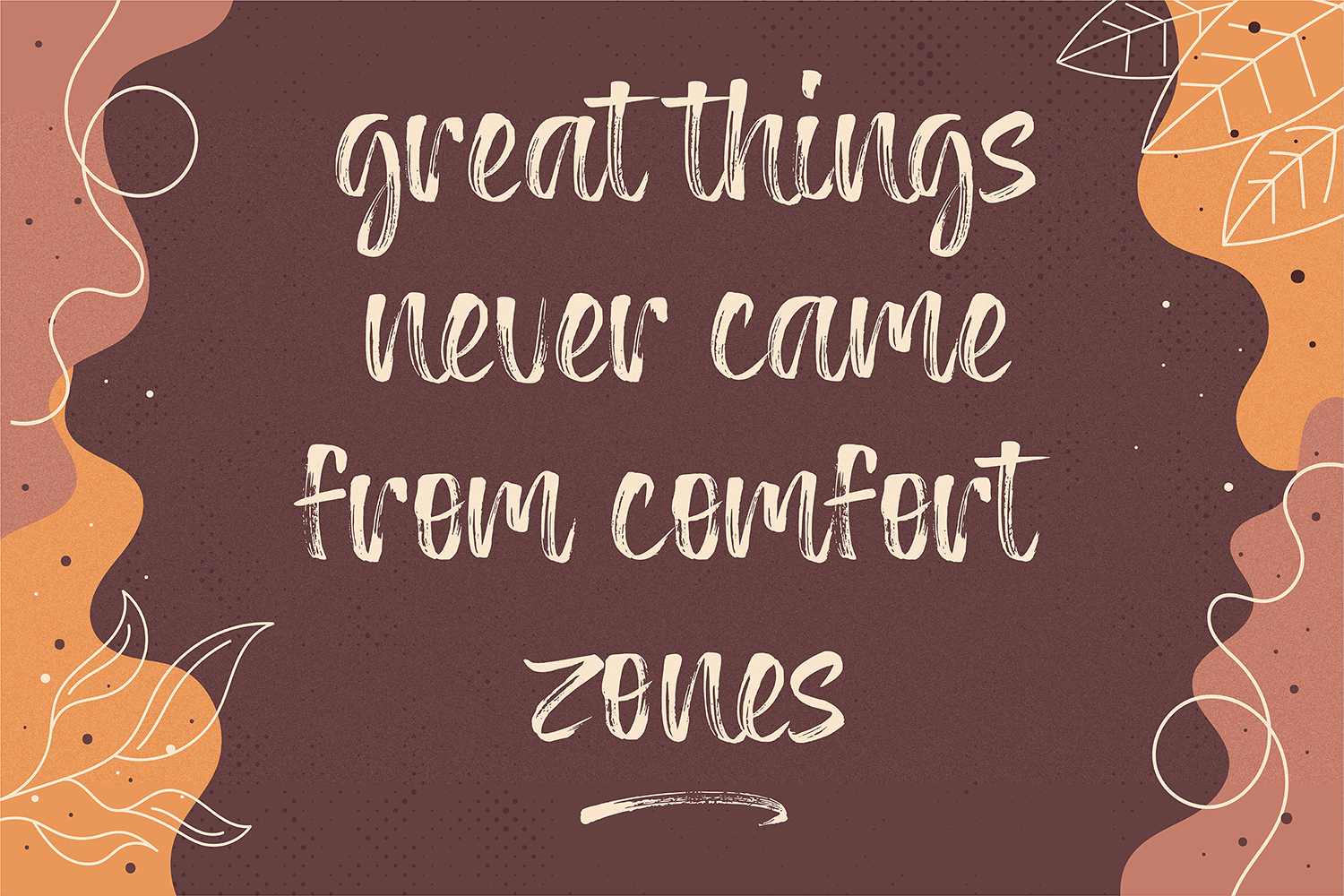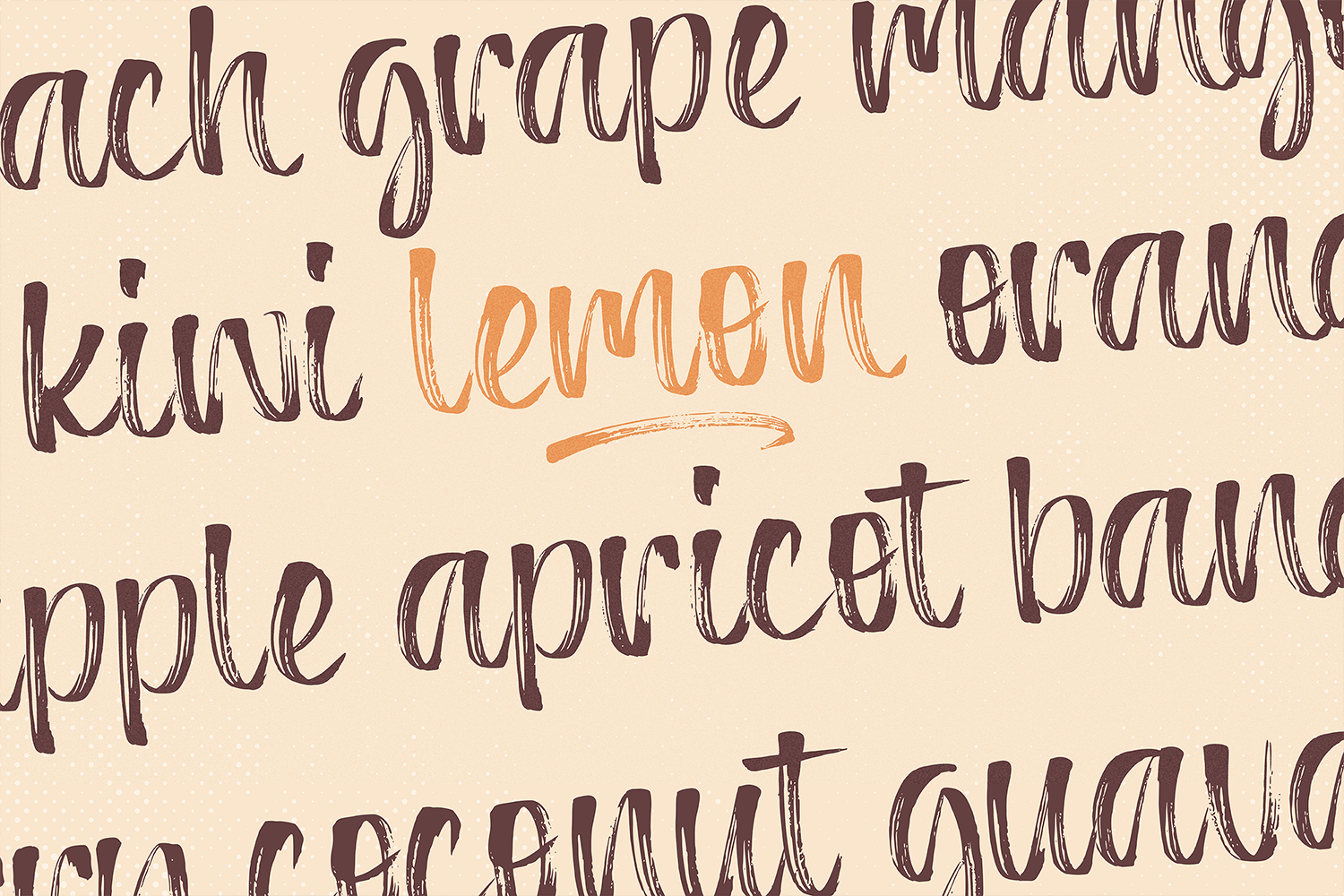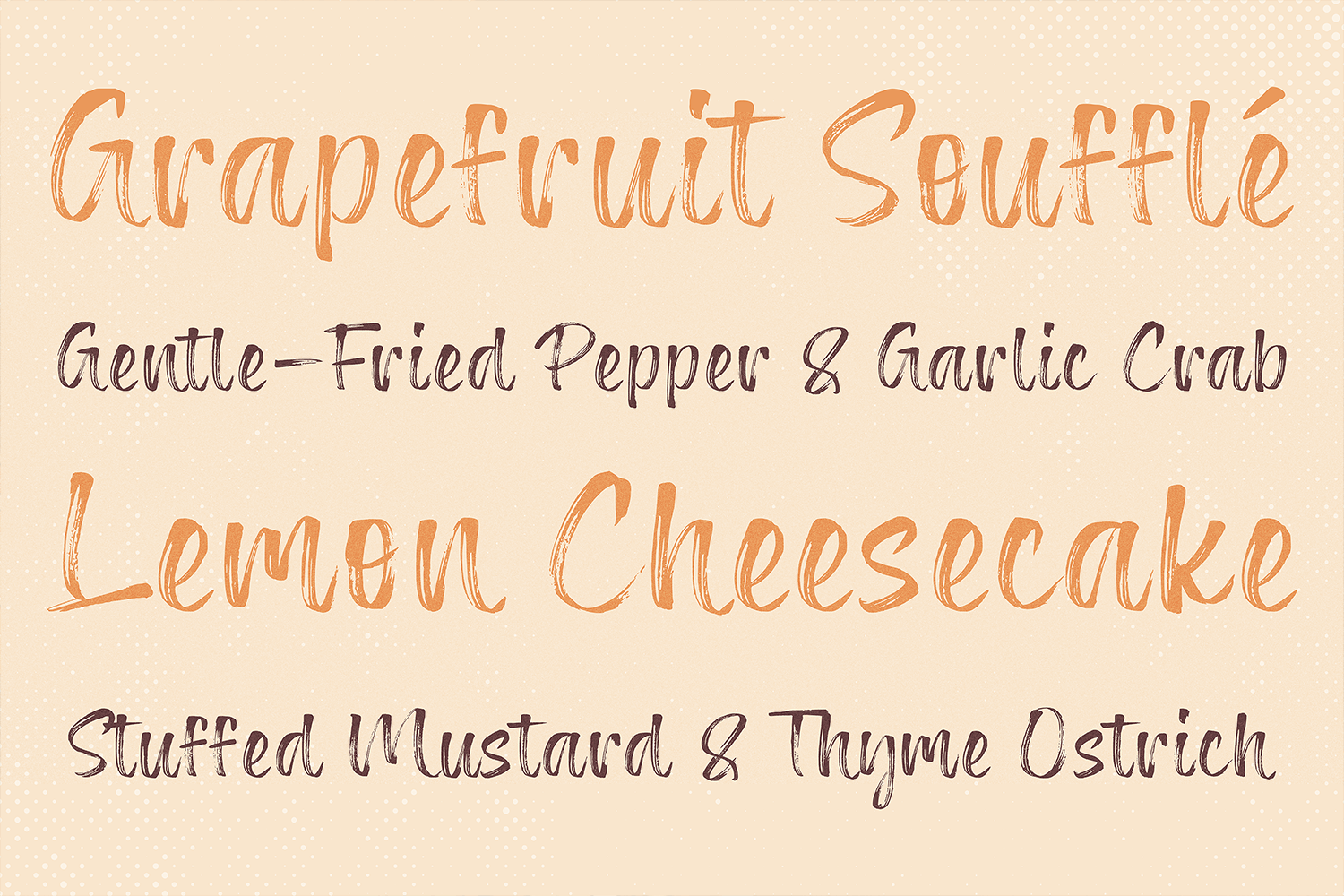
Frinkle Brush Font
This is a readable and finely balanced handwritten font. With consistent and natural detail, Frinkle Brush also come with underline swash (You can access it by typing s1-s3). Frinkle Brush can be placed in many design needs such as, merch, branding, packaging, social media, events, and many more.